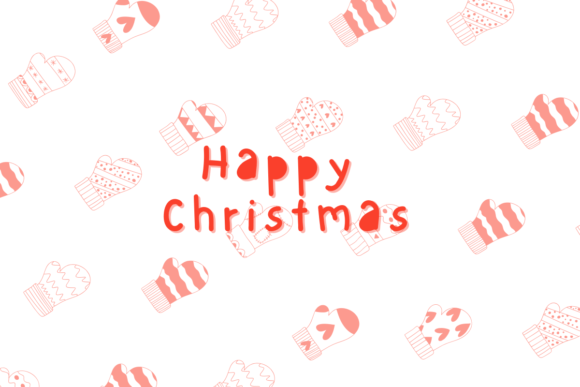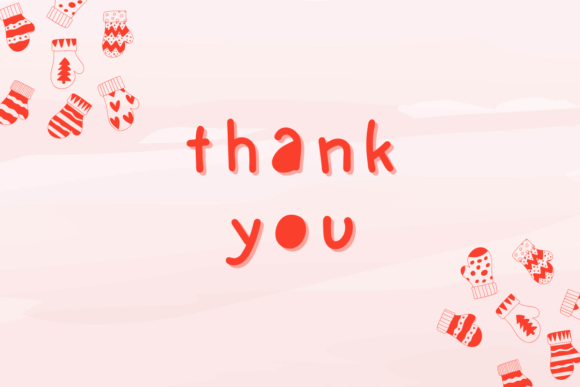
Introduction to Christmas Gloves Font
As you sit by the fireplace, surrounded by twinkling lights and the warmth of the season, you suddenly get a spark of creativity. You envision a design that captures the magic of Christmas, something that will make your loved ones smile and feel the joy of the holiday. This is where the perfect design resource comes in – the Christmas Gloves Font.
This high-quality, unique font is designed to add a touch of whimsy and fun to your creative projects. With its transparent background and modern aesthetic, the Christmas Gloves Font is perfect for quotes, posters, stickers, and more. Whether you’re working on a DIY project or a commercial design, this font will elevate your work and make it stand out from the crowd.
As a designer, you know the value of having the right tools at your disposal. The Christmas Gloves Font is a valuable addition to your design library, offering endless possibilities for creative expression. So why settle for a generic font when you can add a dash of holiday cheer to your designs with this free download?
Key Features of Christmas Gloves Font
- High-quality design resource for creative projects, ideal for winter-themed or holiday-themed designs.
- Unique, hand-drawn design with a touch of elegance, perfect for adding a personal touch to your project.
- Transparent background, allowing for seamless integration into your design without any unwanted edges or borders.
- High-resolution design, suitable for use in various applications, including print and digital media.
- Designed to be used as a standalone font or in combination with other fonts to create a unique visual effect.
Honest Review: Christmas Gloves Font
I recently stumbled upon the Christmas Gloves Font while searching for a free download to add some festive flair to a design project. As a designer, I’m always on the lookout for high-quality design resources that can help bring my creative ideas to life.
The Christmas Gloves Font does not disappoint. The font itself is a fun, playful take on a classic style, with a transparent background that makes it easy to customize and pair with other design elements. One of the things that really stands out about this font is its versatility – it’s perfect for use in everything from holiday cards and invitations to social media graphics and marketing materials.
- Fun, playful design style that’s perfect for holiday projects
- Transparent background makes it easy to customize and pair with other design elements
- High-quality font that’s suitable for a variety of creative projects
- No bold or italic versions available
- Not suitable for use in large blocks of text (best used in headlines and titles)
Overall, I’m really impressed with the Christmas Gloves Font. It’s a great addition to any designer’s toolkit, and I can see myself using it in a variety of creative projects in the future.
Use the font with a transparent background to create a unique, layered design effect. Experiment with different font sizes and colors to create a visually appealing holiday design.
The Christmas Gloves Font is ideal for creative projects, such as holiday cards, gift tags, social media posts, posters, and presentations. Use this font to add a festive touch to your designs and make them stand out.